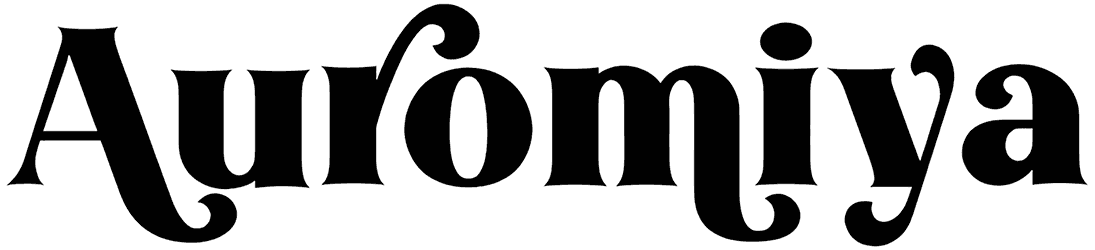
Auromiya Font
Get the job done smoothly with Auromiya’s joyful letters as the main typographic elements in your artwork, and you’ll thank us later for sure. Capturing a sweet taste of retro vibes, this serif font and its not-so-long curly tails are going to be at your service every time your design is missing a playful undertone.
Don’t think twice about choosing this Christmas font for your posters, apparel, or different social media content and setting a festive theme wherever you want.